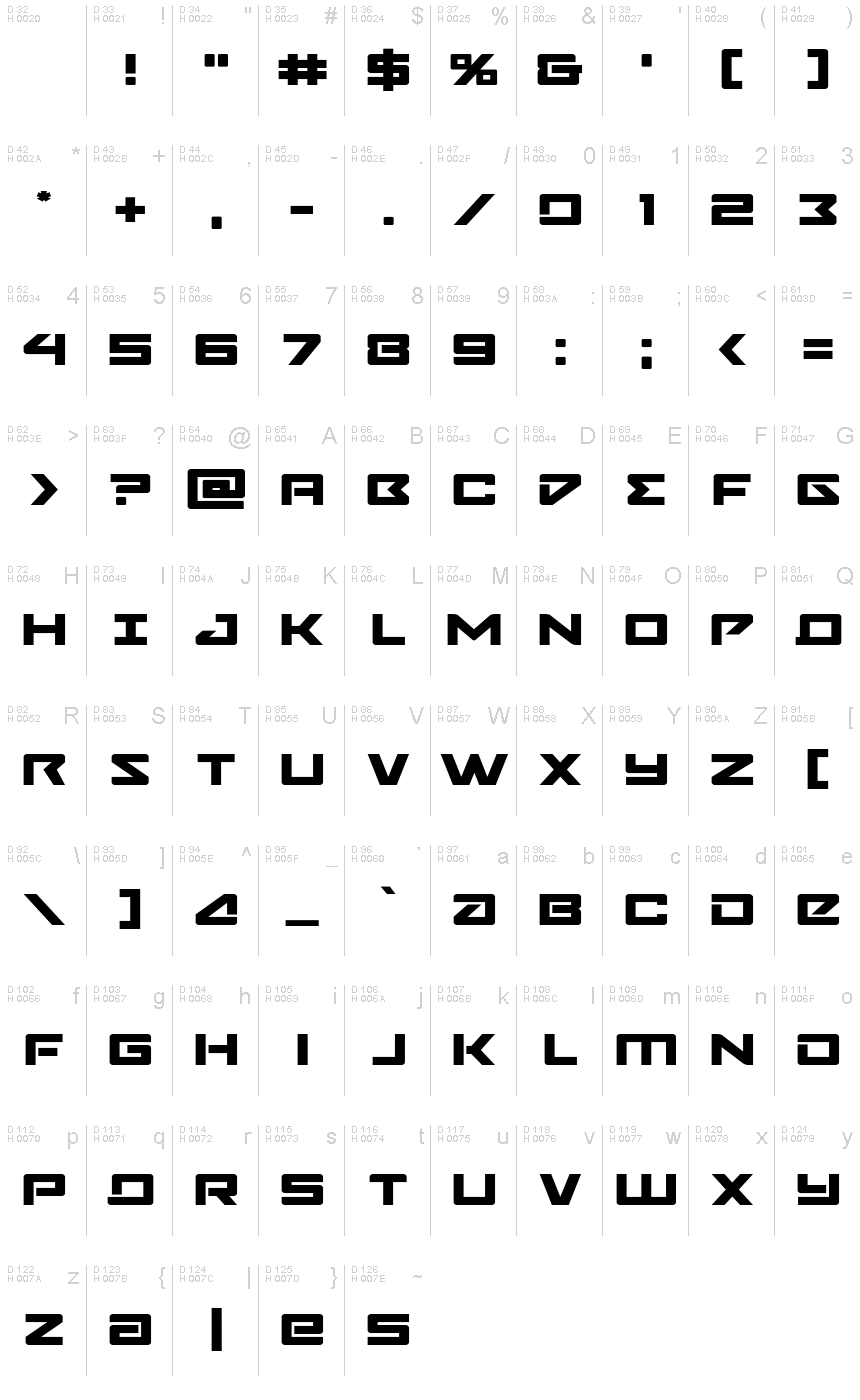
Navy Cadet Expanded
Navy Cadet Expanded is a bold and futuristic display font designed by Daniel Zadorozny. Its distinctive expanded letterforms and angular, geometric shapes exude a sense of strength and modernity.
This font's striking aesthetic would thrive in contemporary design contexts, from sleek branding and packaging to eye-catching headlines and signage. The expansive width and weighty presence of Navy Cadet Expanded make it an impactful choice for capturing attention and conveying a sense of authority.
Its versatility allows it to seamlessly integrate into a variety of design styles, from high-tech and industrial to minimal and avant-garde.
This font's striking aesthetic would thrive in contemporary design contexts, from sleek branding and packaging to eye-catching headlines and signage. The expansive width and weighty presence of Navy Cadet Expanded make it an impactful choice for capturing attention and conveying a sense of authority.
Its versatility allows it to seamlessly integrate into a variety of design styles, from high-tech and industrial to minimal and avant-garde.